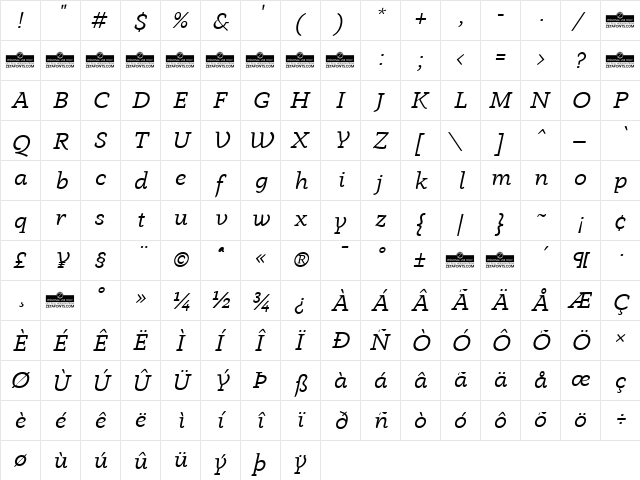
Anaphora Trial Italic
| Foundry | Studio Kmzero |
| Designer | Francesco Canovaro |
Design Context for Anaphora Trial Typeface
Anaphora Trial offers clean, dependable letterforms without strong stylistic allegiance, making it a practical choice for designers who need flexibility. Its italic angle brings a sense of urgency and motion to the letterforms.
Pro Tip: Use Anaphora Trial for emphasis, pull quotes, and subheadings where its slanted energy can add rhythm to the layout.